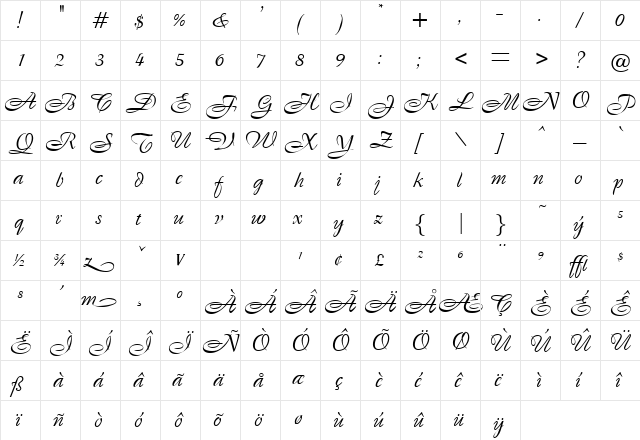
BertholdBoulevard Regular Font Preview
BertholdBoulevard Regular
Design Context for BertholdBoulevard Typeface
BertholdBoulevard is a composed and adaptable typeface that performs quietly and consistently across a wide range of design contexts.